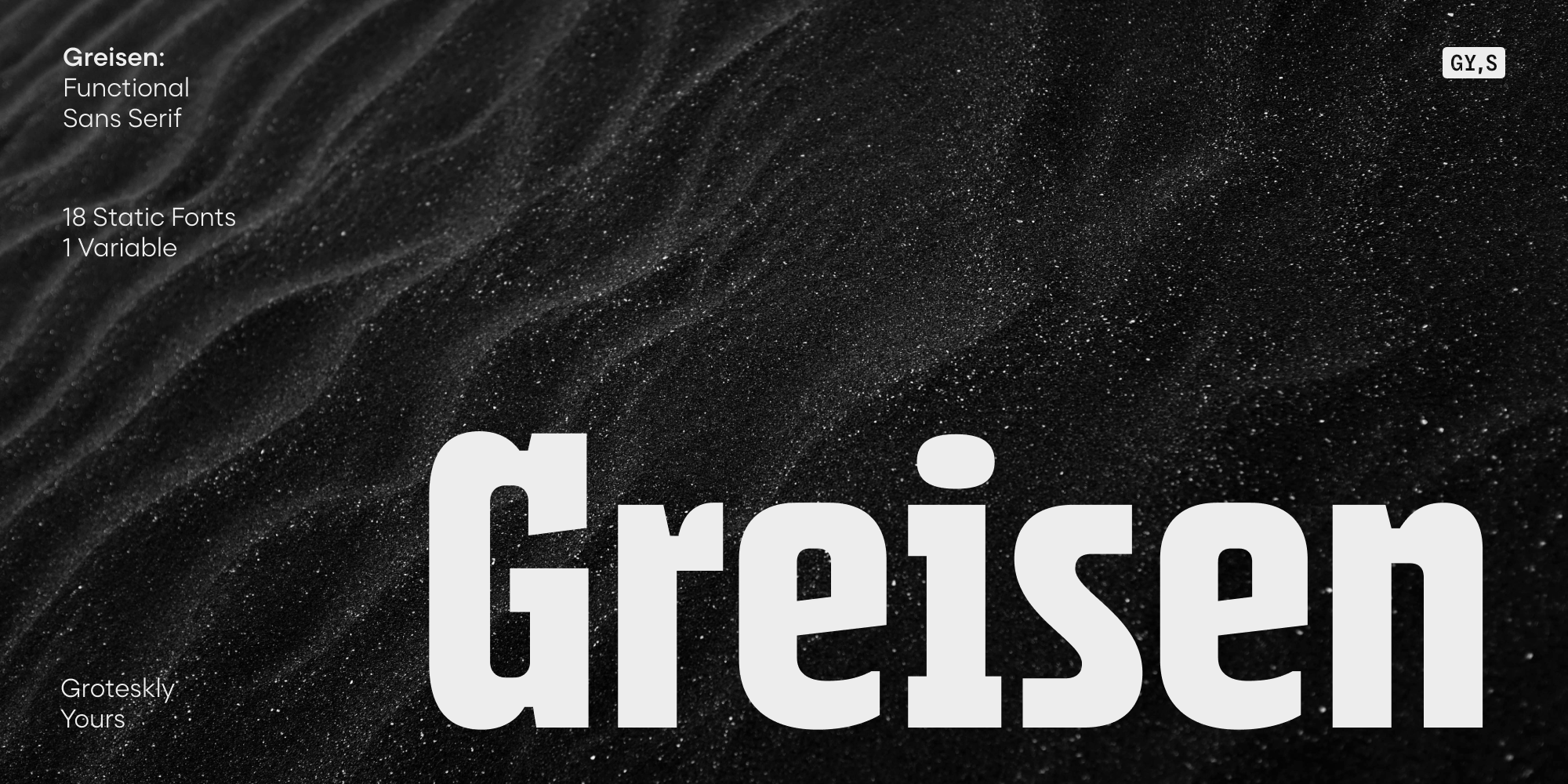
Greisen
Designed by Anna Remm and Eugene Tantsurin, Greisen is a sans serif font family. This typeface has nineteen styles and was published by Groteskly Yours.
Introducing Greisen — a functional type family with condensed proportions and a futuristic vibe.
Greisen is a functional sans serif type family in 18 styles. Characterized by condensed proportions, legible characters, and a sturdy appearance, Greisen easily adapts to a variety of design projects — from web design and editorial design to packaging and branding. Greisen conveys a sense of security and reliability, making it an excellent choice for projects that require a steadfast and trustworthy aesthetic.
Greisen offers a wide range of styles, ranging from Thin to Black, as well as matching italics. The condensed proportions of Greisen maximize space without sacrificing legibility, making Greisen suitable for modern, space-efficient layouts. Developed to meet modern design standards, Greisen features 600+ characters, supports 100+ languages, and includes various OpenType, such as Case Sensitive Punctuation, Fractions, Sub- And Superscript, Stylistic Alternates, and more.
In addition to upright styles, Greisen includes matching italic styles that enhance Greisen’s innate dynamism. The italic styles add a touch of elegance and movement, providing designers with an extra layer of creative expression while maintaining the overall sense of strength and stability.
Greisen offers a balance between modern aesthetics and functionality. With a wide selection of styles, large character set, and meticulous attention to detail, Greisen can effortlessly adapt to various design tasks, and feel at home in a variety of projects.